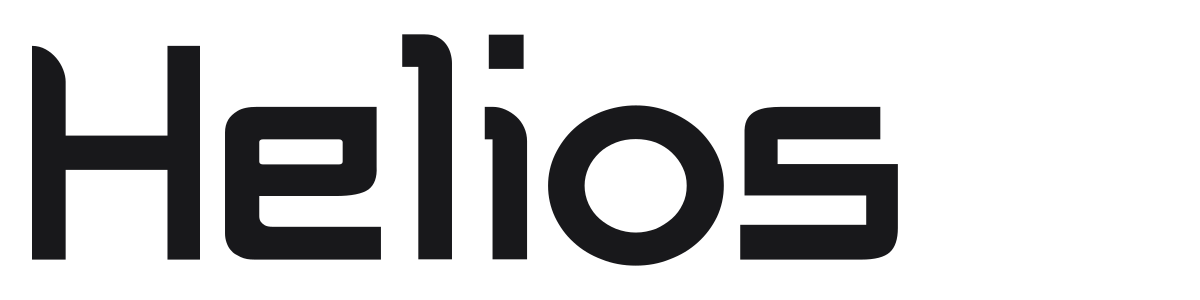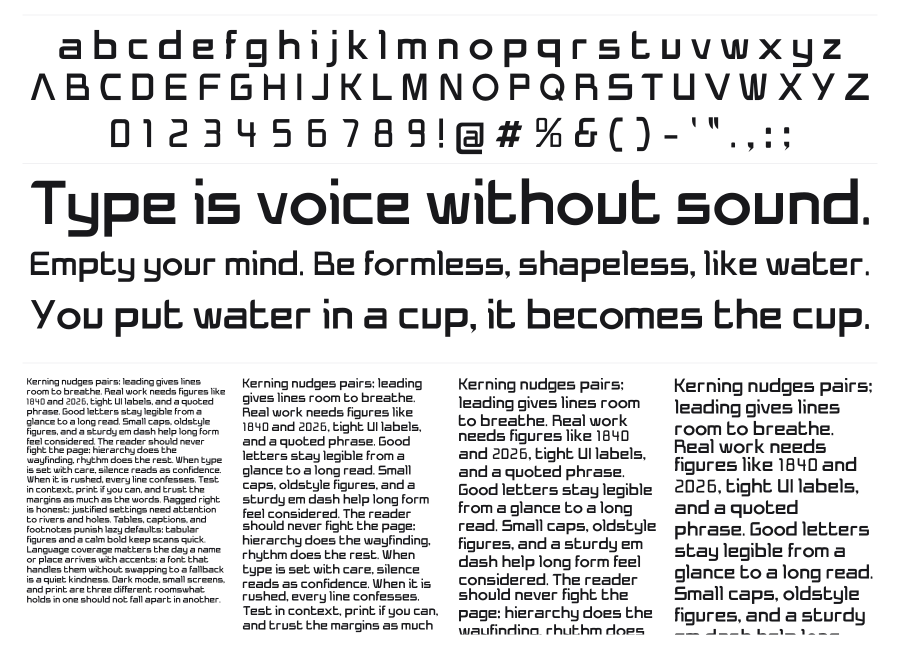
Helios
Helios is a bold geometric sans with squared-off rounded terminals and wide, confident proportions. The near-monoweight strokes and subtly softened corners give it a contemporary tech edge without tipping into novelty. It works well at large sizes for headlines, logos, and branding where presence matters.